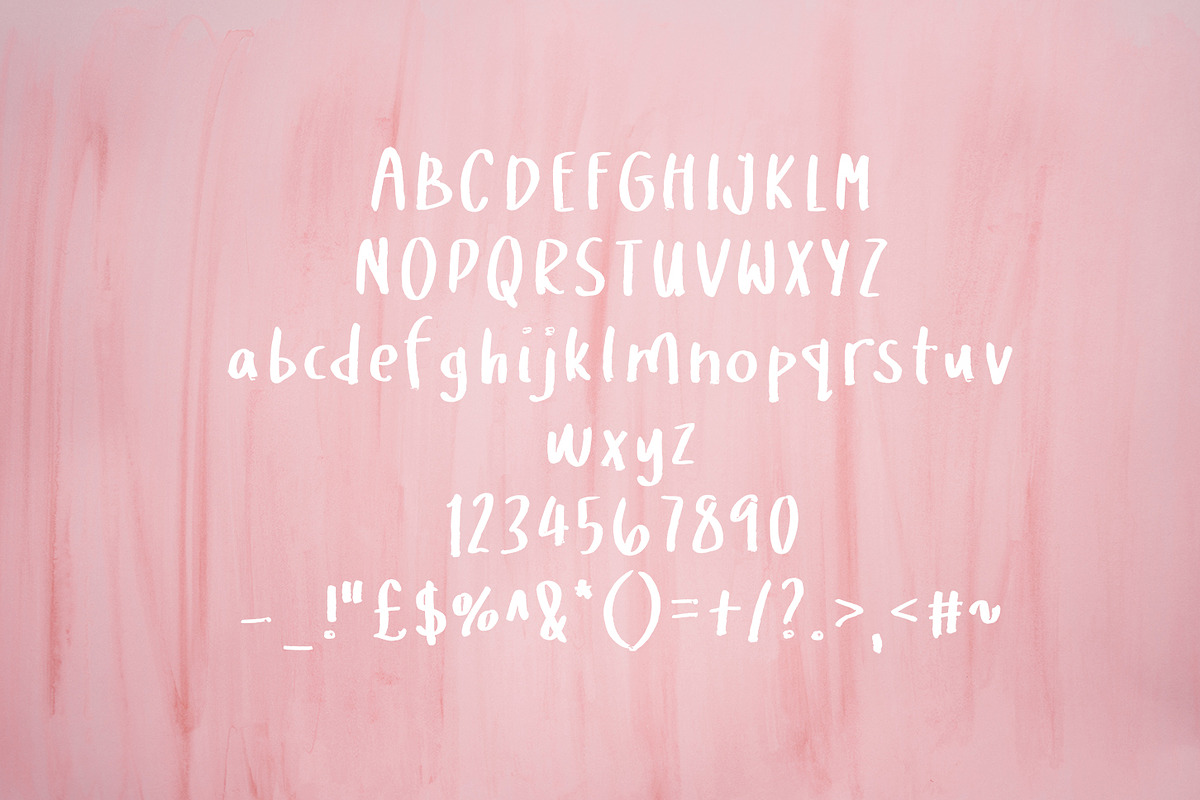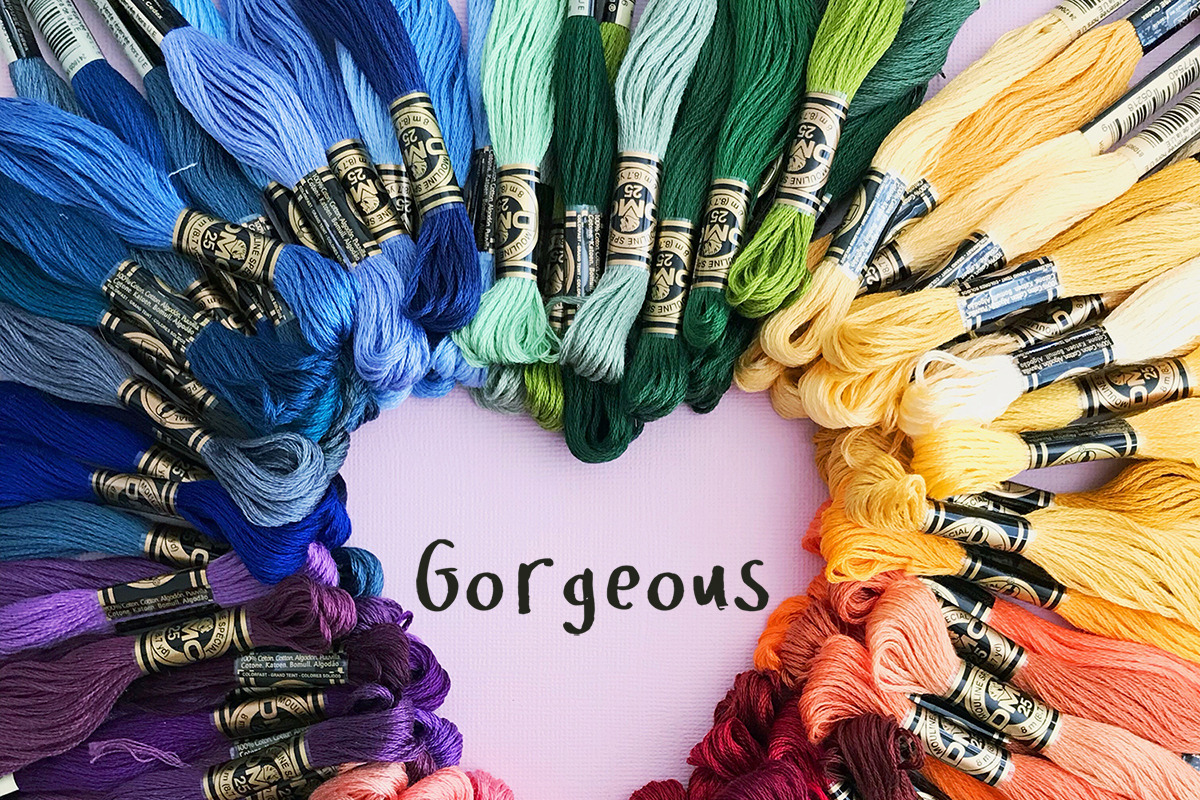
Gorgeous Handwritten Brush Font
A handwritten font with jagged edge detail. This playful font would look great in your print, mug or invitation designs.
Gorgeous Handwritten Brush Font by TessShearer fits naturally into Branding, posters, packaging, typography.